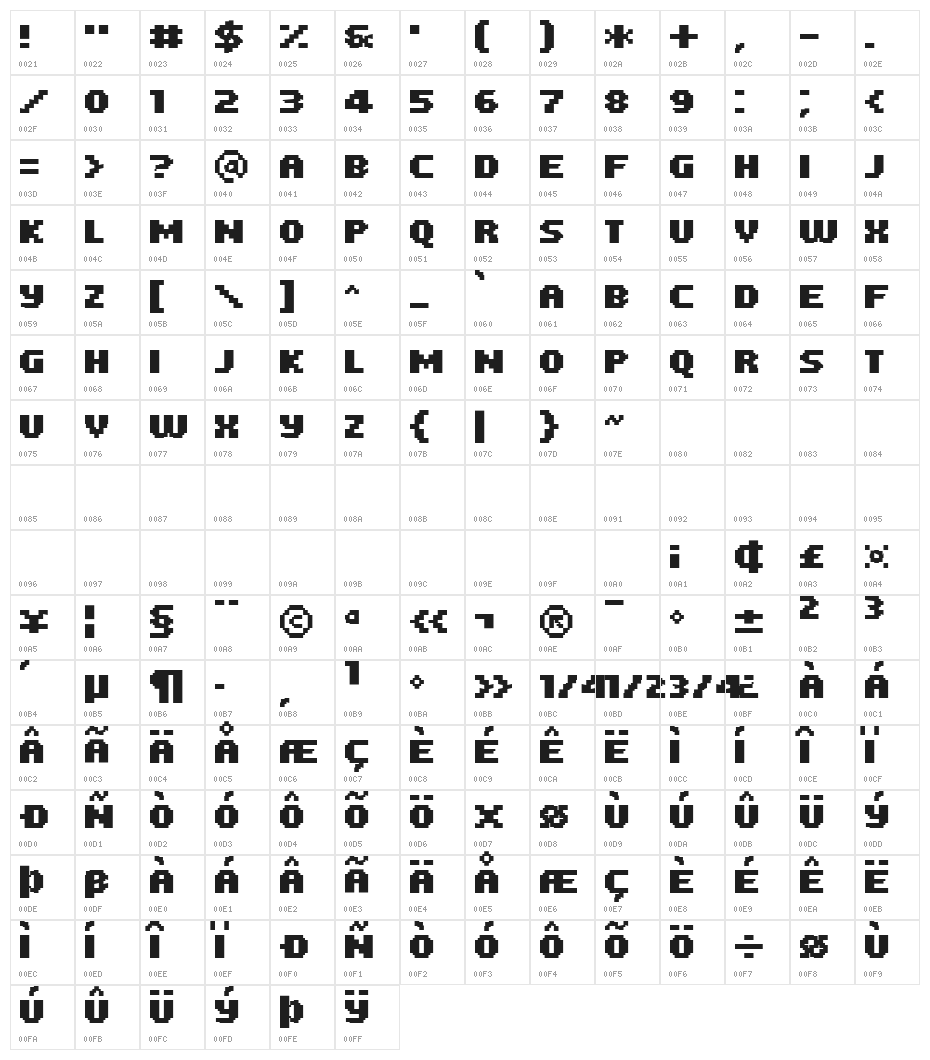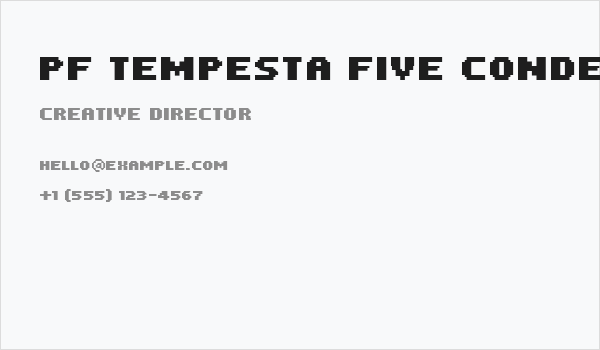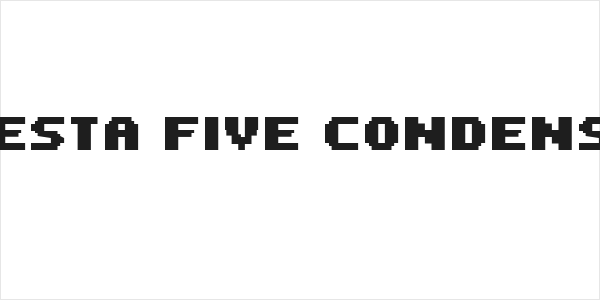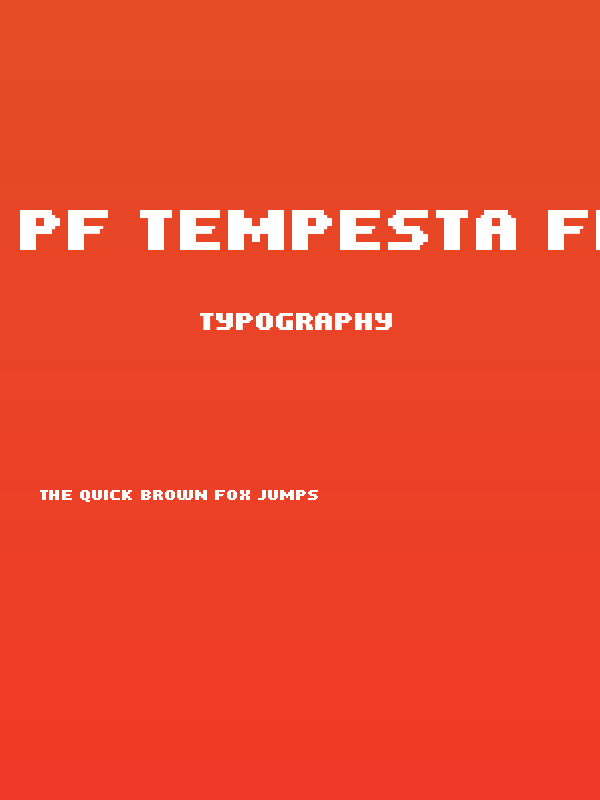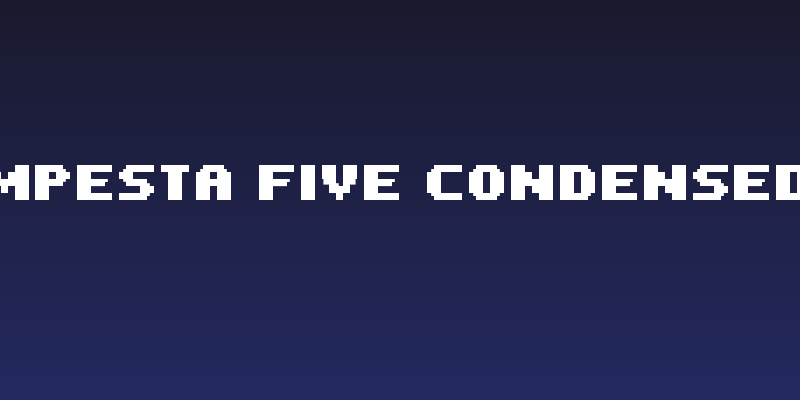
PF Tempesta Five Condensed Bold Font
PF Tempesta Five Condensed Bold Description
This font features a bold and condensed style with a strong geometric influence. The characters are blocky and robust, giving off a digital or pixelated aesthetic. The uppercase and lowercase letters maintain a consistent height, contributing to a uniform appearance. The numbers and special characters follow the same bold and condensed design, ensuring consistency across all glyphs. The font's design is straightforward, with minimal curves and a focus on straight lines and right angles, making it ideal for digital displays or retro-themed projects.
| Use Case | Headlines, Logos, Digital displays |
| Proposed Projects | Ideal for digital displays, retro-themed designs, video game graphics, and tech-related branding. |